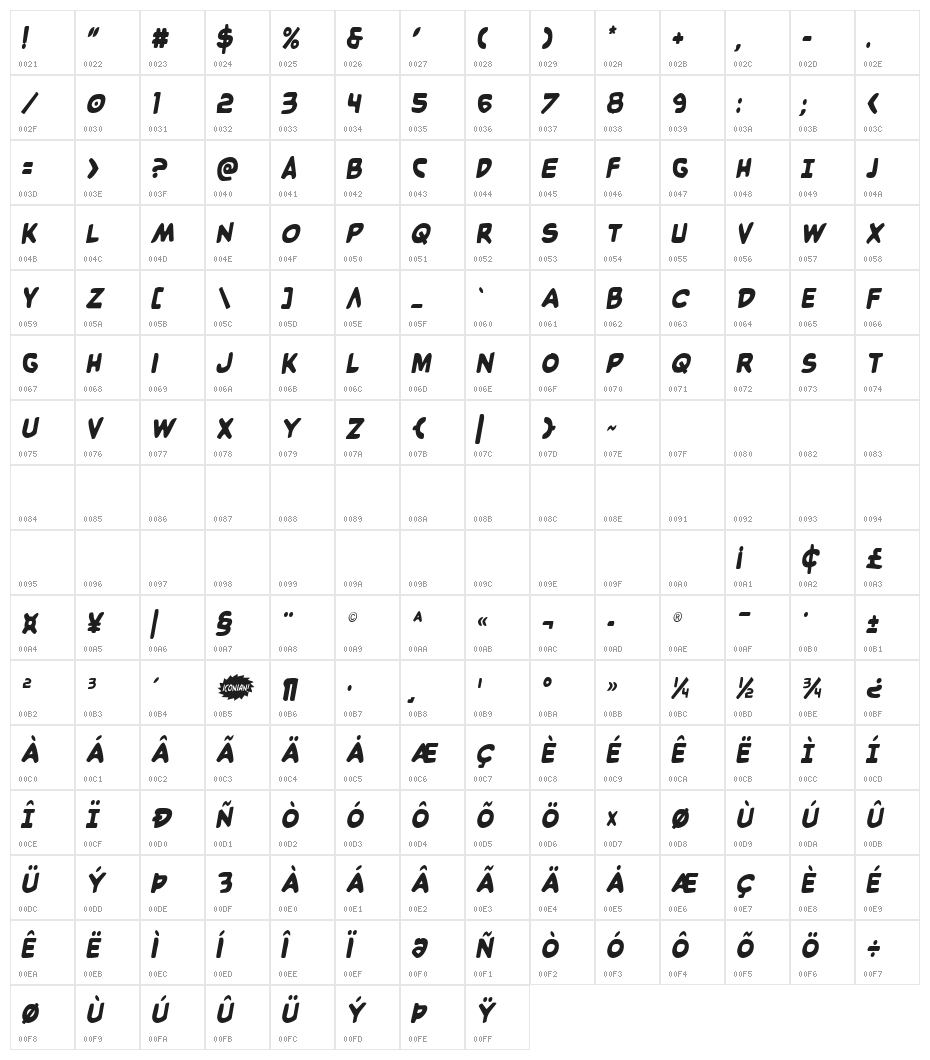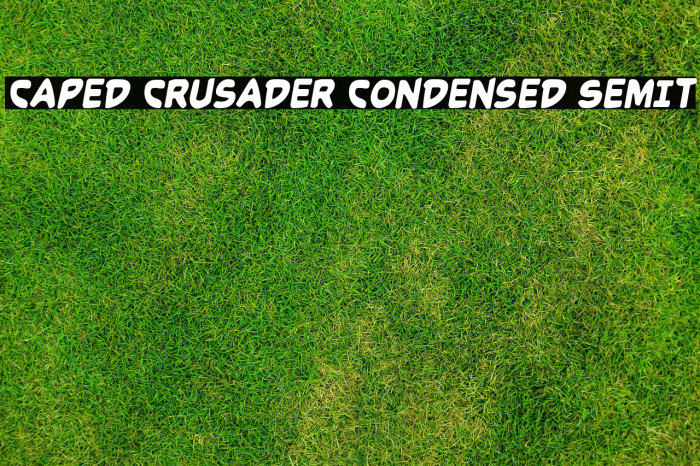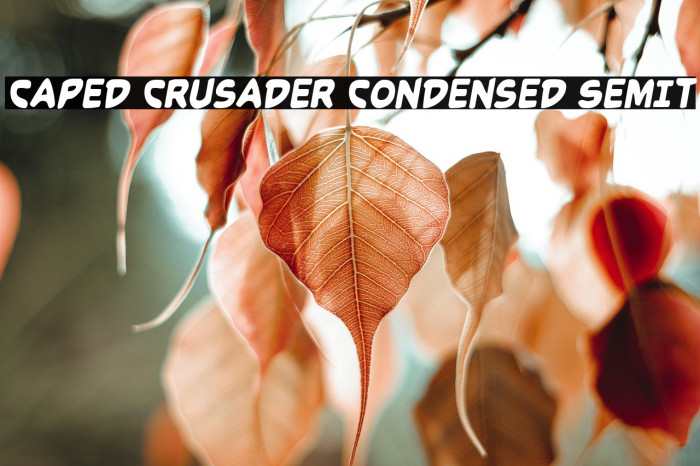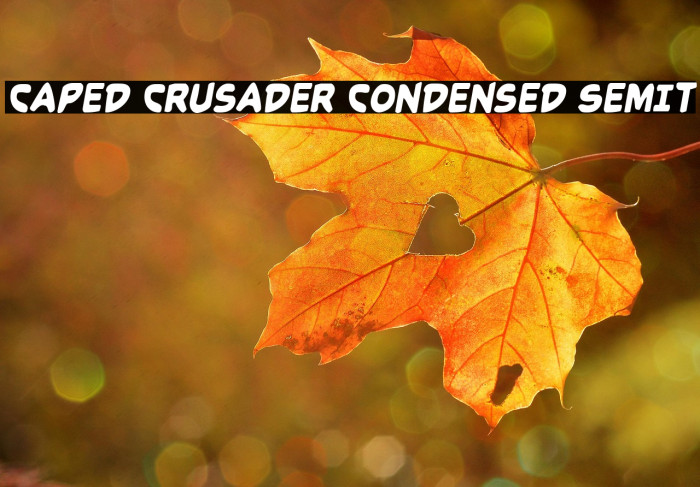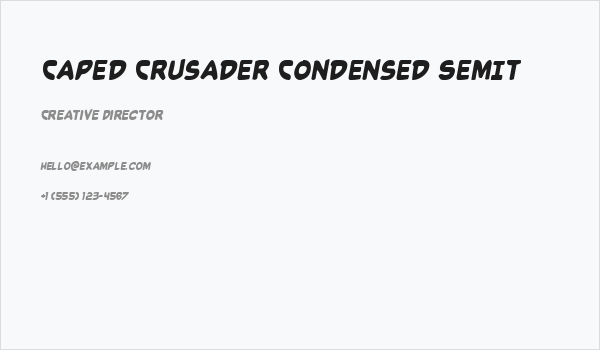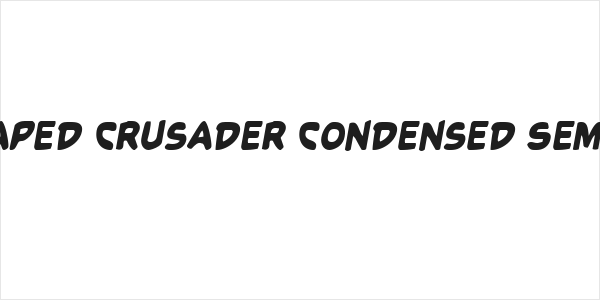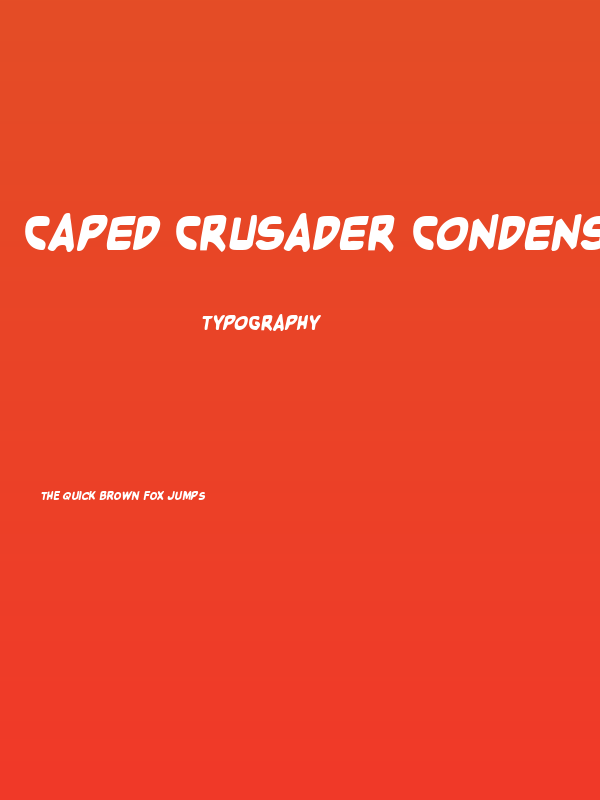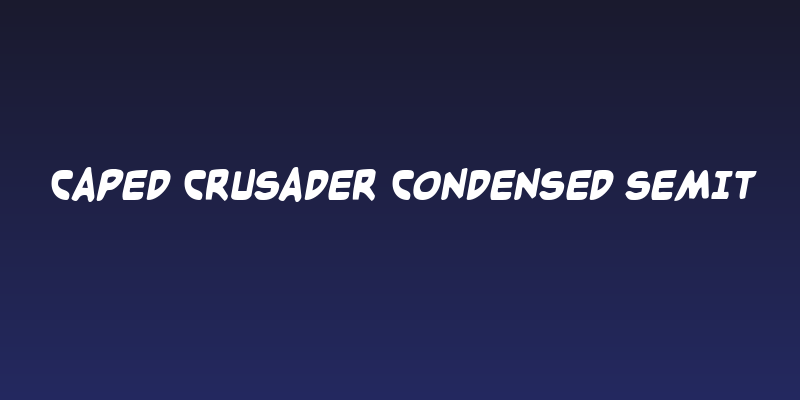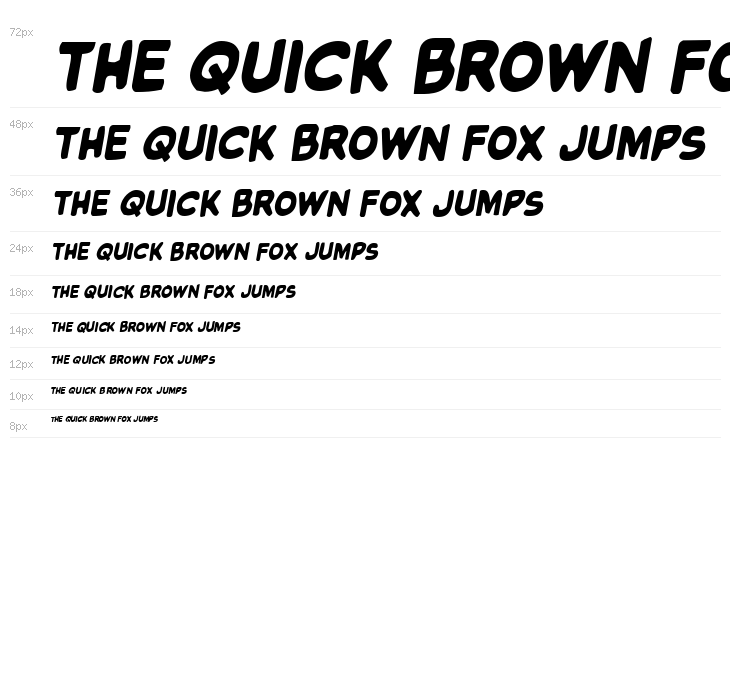
Caped Crusader Condensed SemIt Font
Caped Crusader Condensed SemIt Description
This font features a bold and dynamic style with a condensed form, giving it a strong and impactful presence. The characters are slightly italicized, adding a sense of motion and energy. The strokes are thick and consistent, providing a uniform appearance across all characters. The rounded edges soften the overall look, making it approachable while maintaining a sense of authority. This font is well-suited for attention-grabbing headlines and titles, where a bold statement is needed. The character spacing is tight, which enhances its compact and cohesive look. The numbers and special characters are designed to match the boldness and style of the letters, ensuring a harmonious appearance throughout.
| Overall Style | Dynamic and Energetic |
| Proposed Projects | Ideal for comic book titles, action-themed posters, branding for dynamic products, and any project requiring a bold, energetic typeface. |